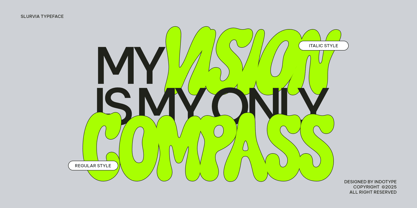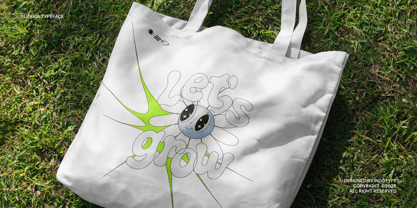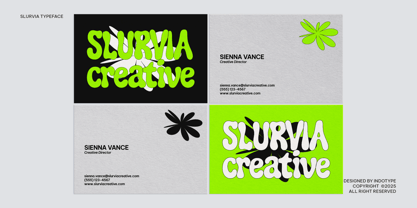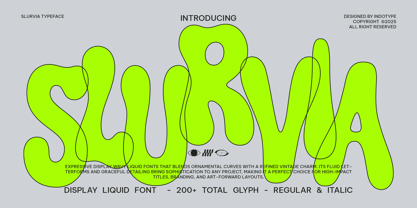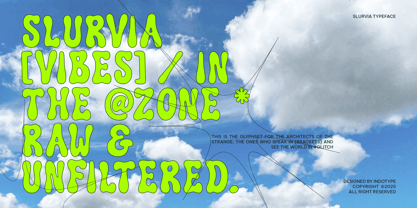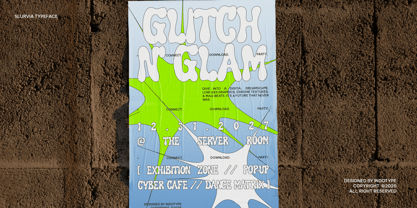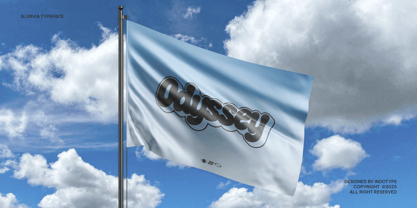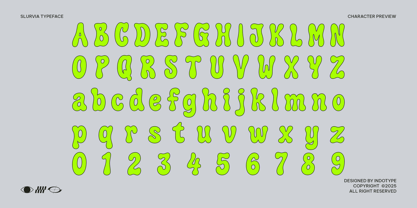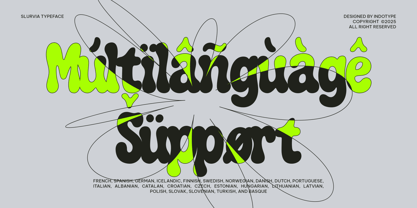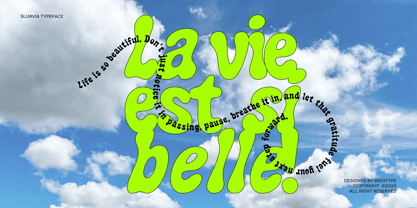
IT Slurvia
by Indotype
The IT Slurvia Font Family was designed by Dede Kurniawan and published by Indotype. IT Slurvia contains 2 styles and family package options. More about this family
Slurvia is an expressive display typeface that captures the fluidity of motion and the playful character of liquid forms. With its wavy, ornamental structure and vintage-inspired curves, Slurvia merges organic movement with a bold, modern sensibility. Designed for creative designers and brands seeking unique visual expression, its exaggerated shapes and graceful flow bring a sense of rhythm and personality to any layout. Each letter is meticulously crafted to balance unpredictability and harmony, offering a distinctive presence in every composition. Perfect for high-impact titles, branding, posters, editorial layouts, and art-driven designs, Slurvia transforms words into dynamic visual statements that feel alive and fluid.